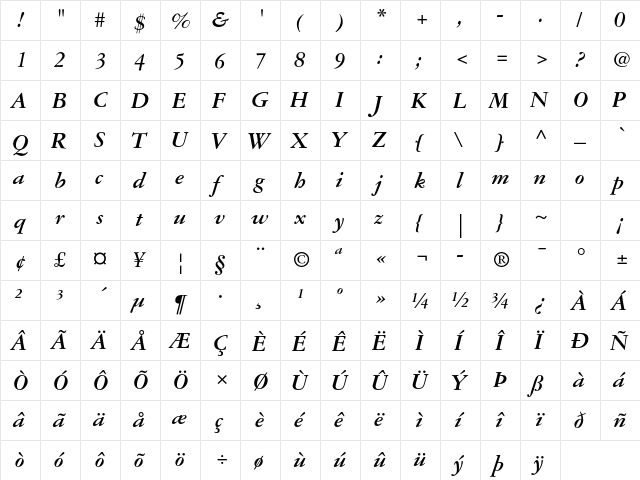
Garamond 3 LT Std Bold Italic
| Designer | Morris Fuller Benton, Thomas Maitland Cleland |
Design Context for Garamond 3 LT Std Typeface
Garamond 3 LT Std offers clean, dependable letterforms without strong stylistic allegiance, making it a practical choice for designers who need flexibility. Its italic angle brings a sense of urgency and motion to the letterforms. The heavy weight commands attention and anchors typographic hierarchies.
Pro Tip: Use Garamond 3 LT Std for emphasis, pull quotes, and subheadings where its slanted energy can add rhythm to the layout.